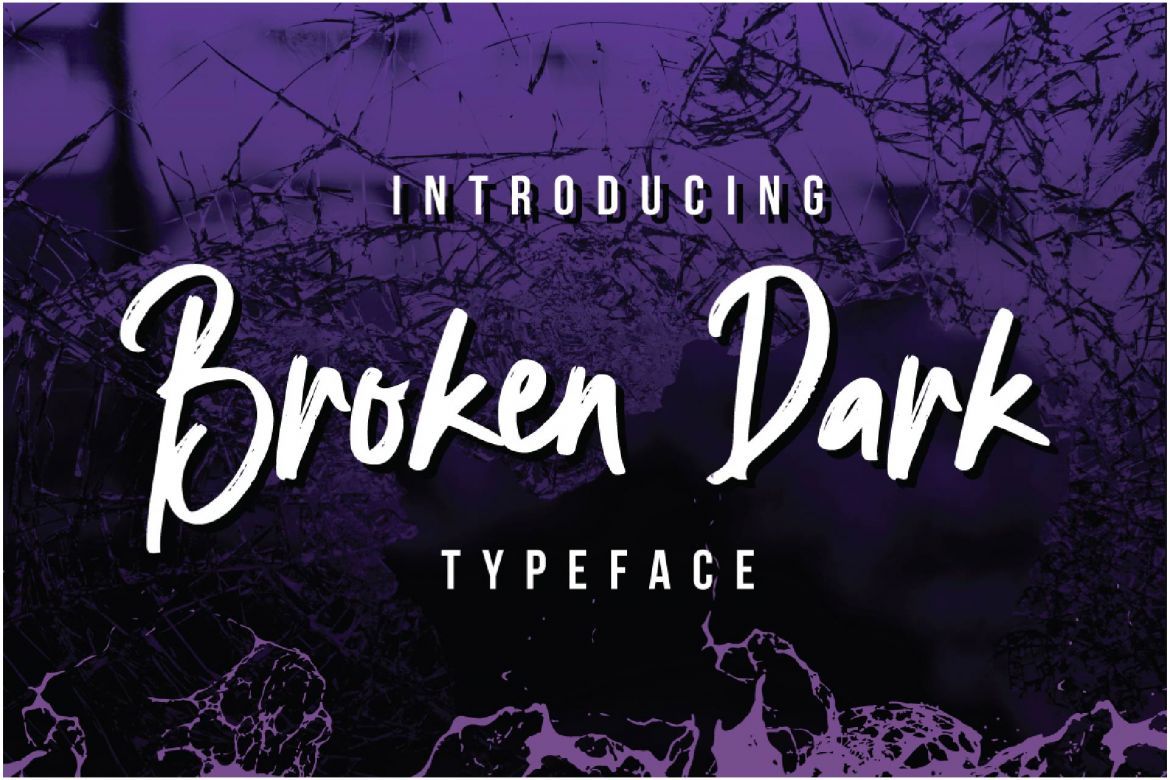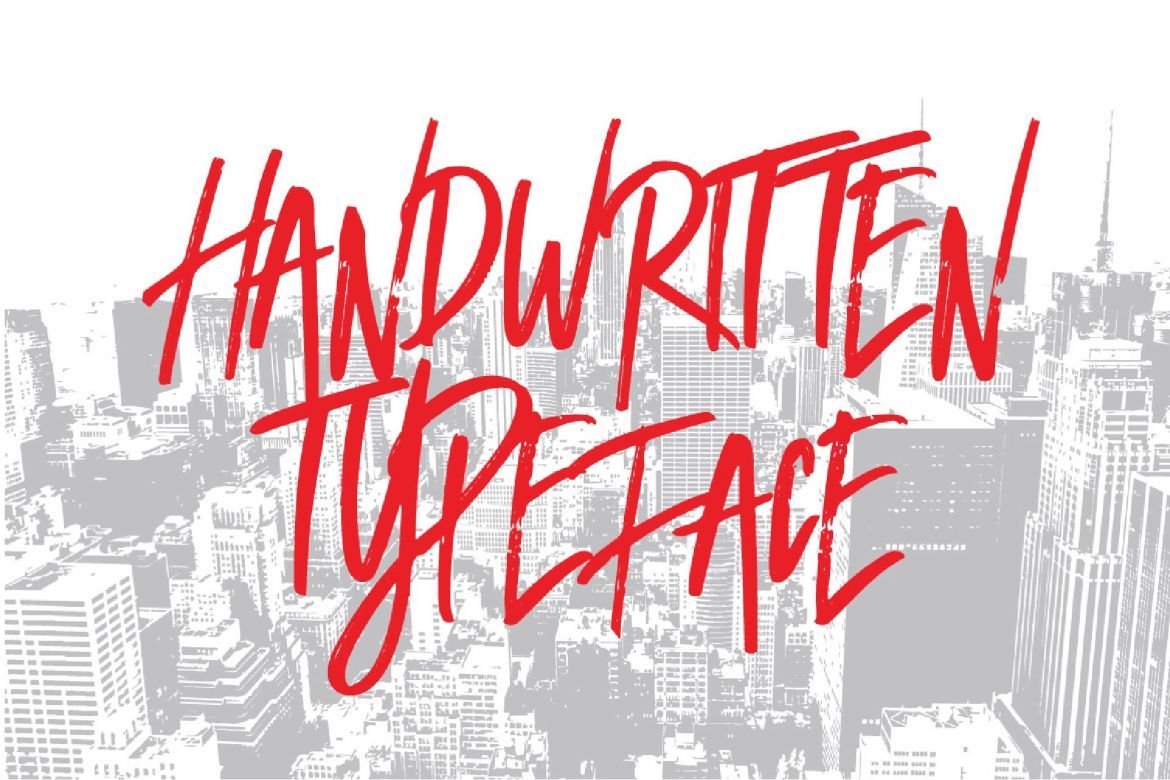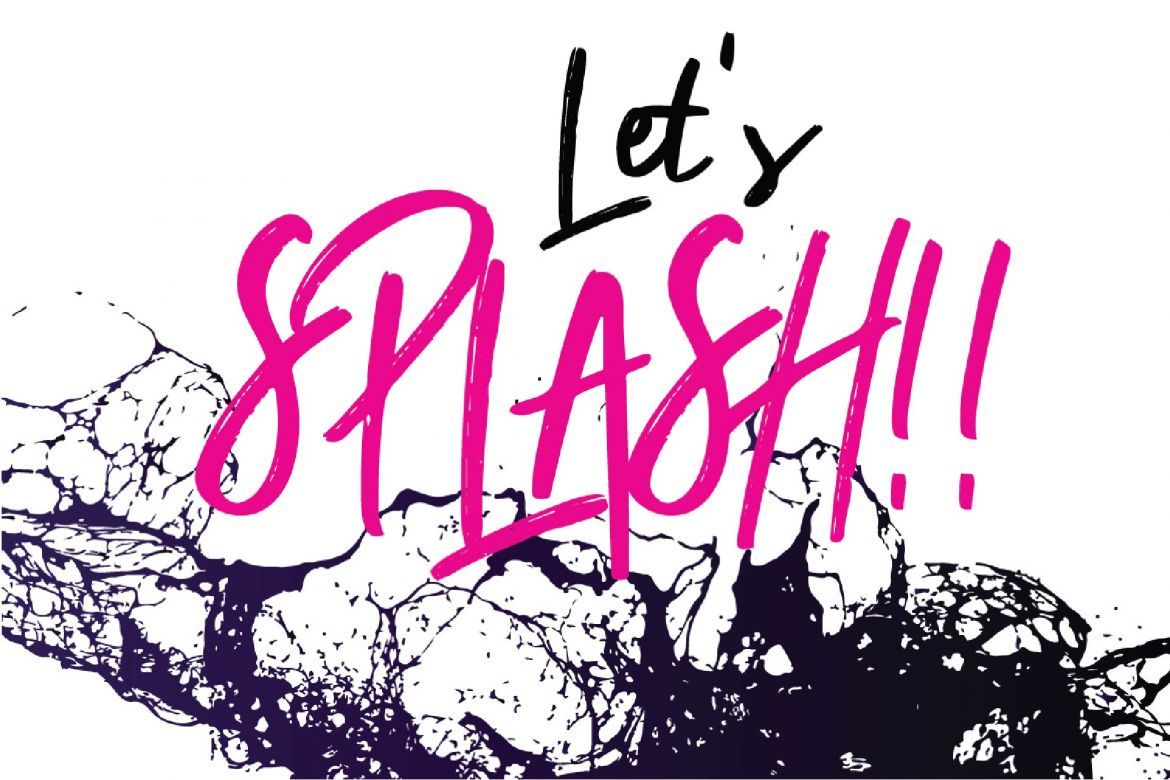
Broken Dark Typeface
Broken Dark Typeface is a A New Handwritten Typeface Style give the Unique looks.
Great for Apparel Brand, Logos, printed quotes, invitations, image overlays, greeting cards, product packaging, text headers, any greeting cards, book cover, Painting design style, or any design that needs natural and personal touch & whatever else your imagination holds! Mix and match the alternate characters to add an attractive message to your design.